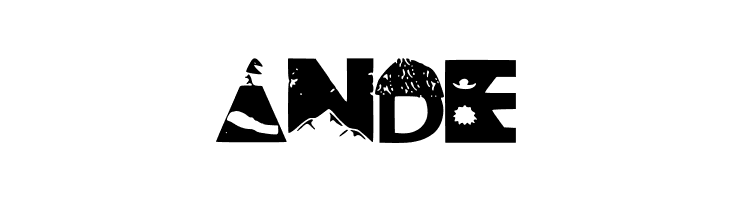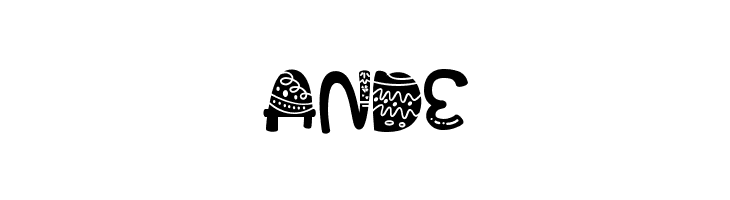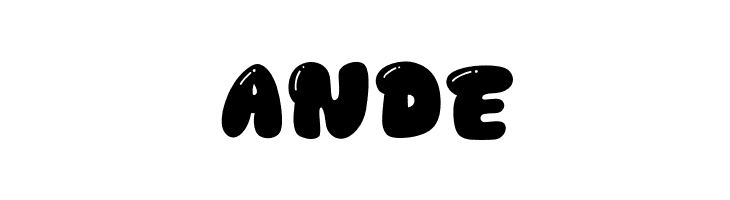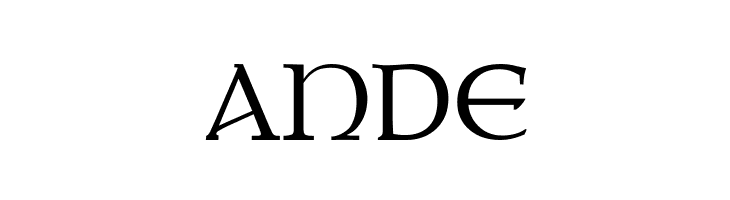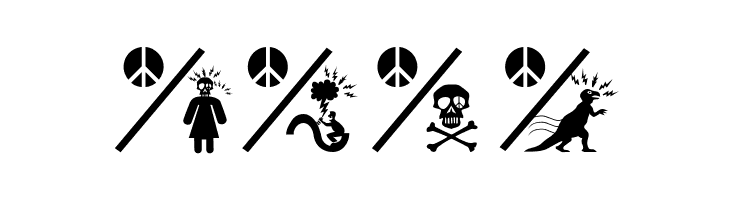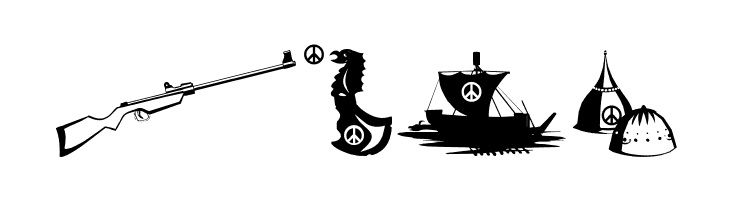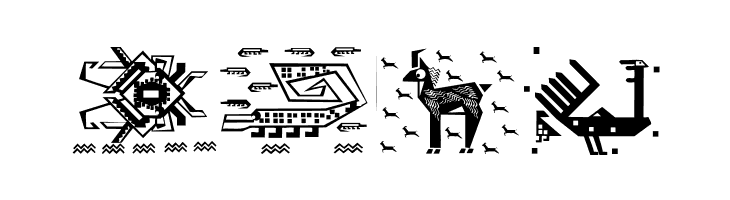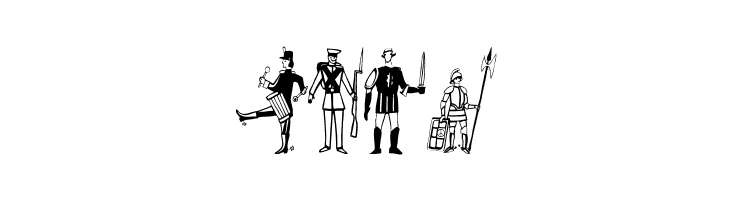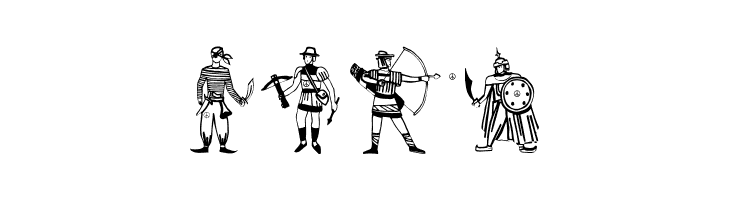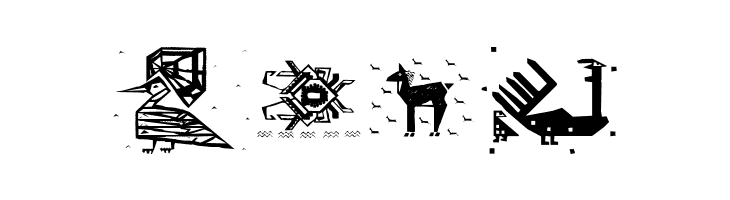
A playful, ornamented font with intricate patterns and festive motifs.
A casual, handwritten font with a playful and informal style.
A classic serif font with elegant curves and refined details.
A bold, expressive handwritten font with dynamic strokes and a playful style.
A bold, decorative font with Nepalese cultural elements and landmarks.
A decorative and whimsical font with characters resembling unique animals.
A decorative, pattern-filled font with folk art influences.
A decorative font with stylized animal patterns and geometric designs.
A bold, robust font with strong strokes and a modern yet timeless design.
A bold, robust font with strong strokes and elegant curves, ideal for headlines.
A playful, casual handwritten font with dynamic, irregular strokes.
A playful, casual handwritten font with a lively and spontaneous style.
A playful, handwritten font with a whimsical and informal style.
A whimsical, doodle-like handwritten font with playful embellishments.
A playful, informal handwritten font with whimsical letterforms.
A playful, casual handwritten font with uneven strokes and a personal touch.
A playful set of hand-drawn doodles with a whimsical and casual style.
A bold, geometric font with a futuristic and industrial aesthetic.
Bold, rounded, playful display font with bubble-like shapes.
Cartoonish, illustrated font with playful and spooky character depictions.
Illustrative, character-based font depicting peace and war figures.
A pictorial, military-themed decorative font with each character as a unique illustrated figure.
A decorative font featuring intricate silhouettes of people and animals.
A symbolic collection of icons blending peace and conflict themes.
A bold, angular font with a futuristic and edgy design.
An illustrative font merging peace symbols with weaponry for visual storytelling.
A display font with each character depicted as a weapon or military-themed illustration.
A bold, playful font with rounded edges and a strong, friendly presence.
An illustrative, cartoon-based decorative font with unique character scenes.
A classic serif typeface with balanced proportions and medium contrast.
A bold, geometric font with block-like characters and minimal stroke contrast.
A pixelated, blocky font with a retro digital aesthetic.